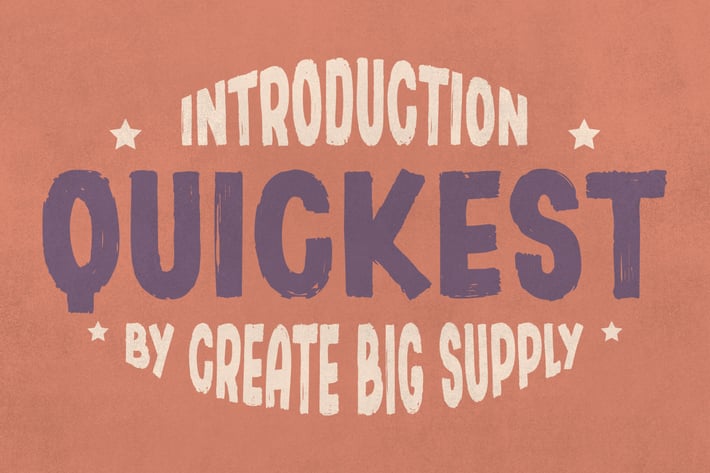
Quickest - Sans Serif Brush Font
Quickest is a sans serif brush font that has bold, strong, bold characters. This will add a very unique and powerful touch to your design. This font is PUA encoded which means you can access all the glyphs and sweeps easily
Features:\
+All Uppercase
+Numbers and punctuation
+Multilingual